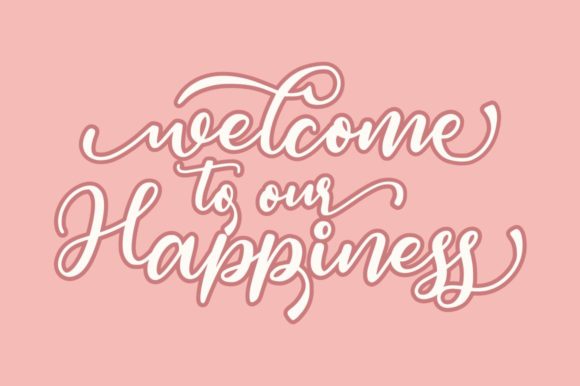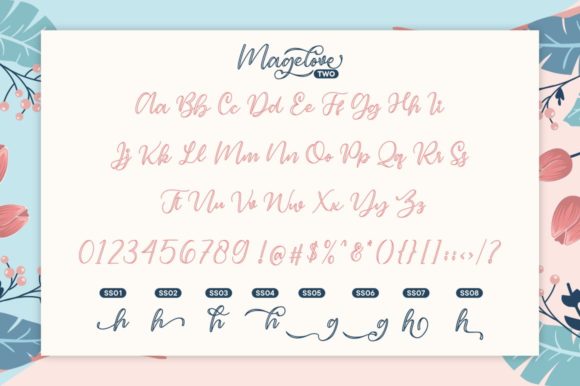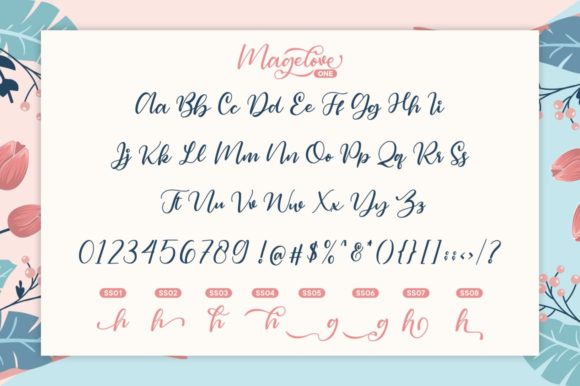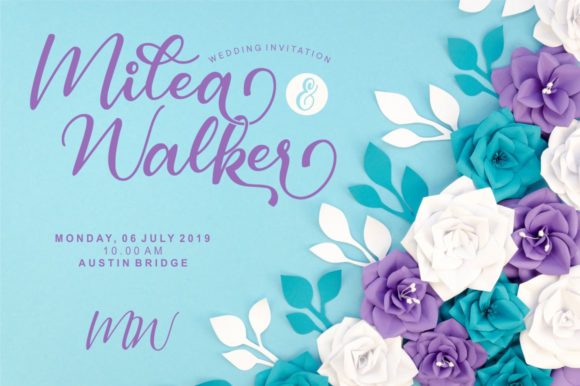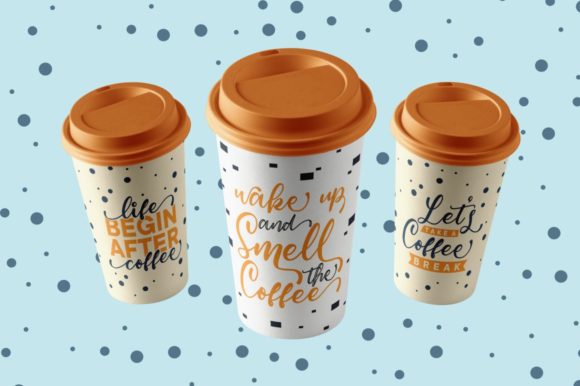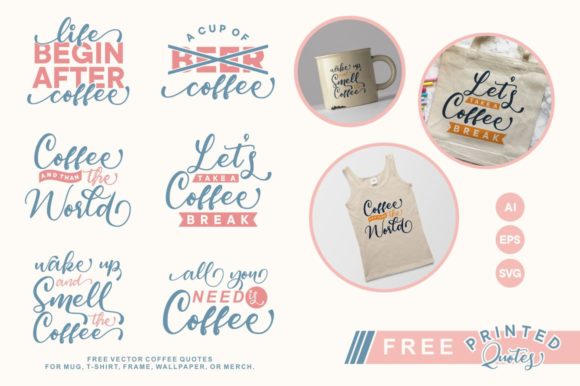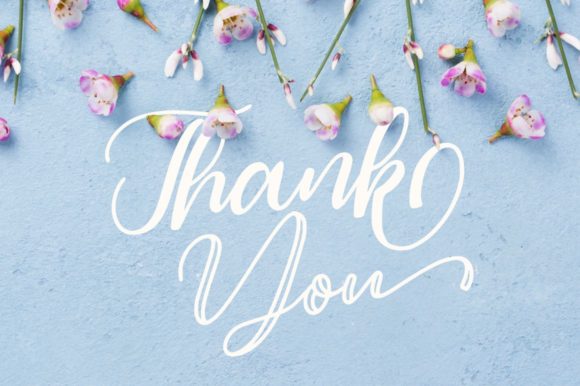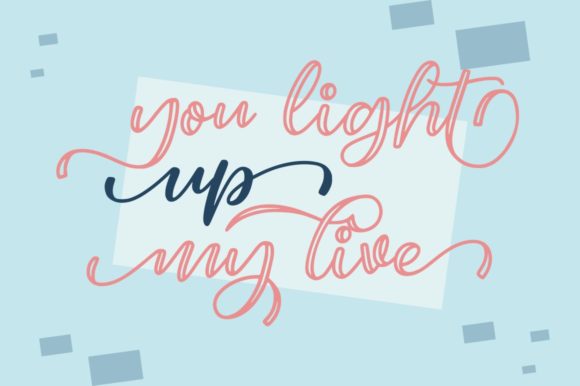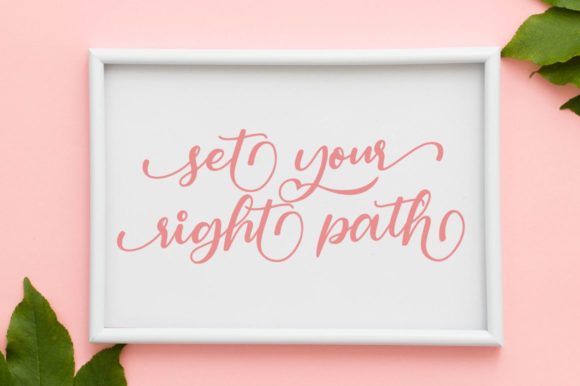
Magelove Font
About Magelove Font
Naturally beautiful, Magelove is a sweet and playful handwritten font with a cool charm. Get inspired by its unique look & feel!